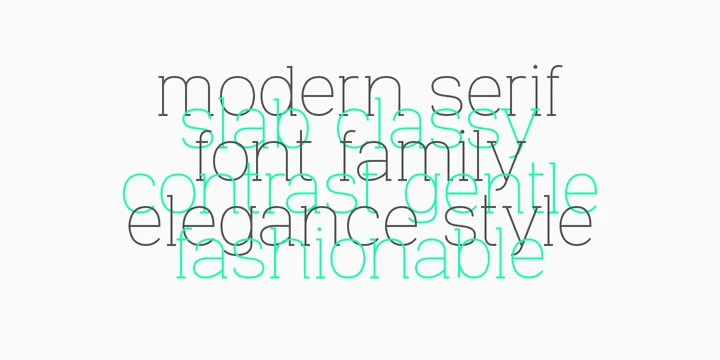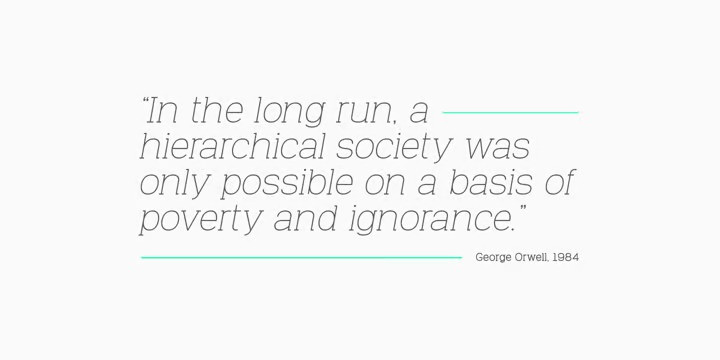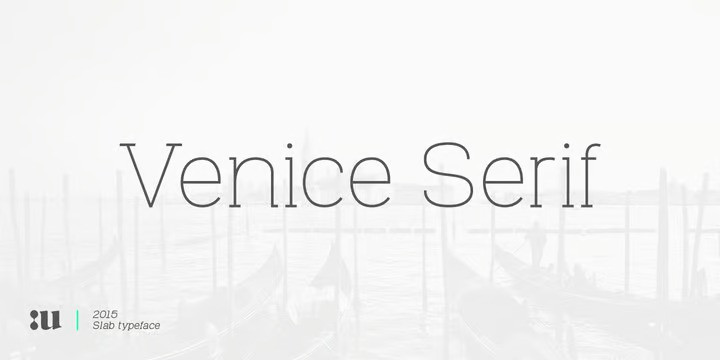
Venice Serif Font
Introducing “Venice Serif – Font Family” – a functional serif type system with a sleek structure which gives a strong personality while still maintaining high readability. Developed in three weights with matching obliques. The full set of weights (Light, Regular and Bold) counts more than 350 glyphs. The end result is a family with full multilingual capabilities and a coverage of several languages based on the Latin alphabet. This fashionable font family is the ideal choice for advertising, corporate design, packaging, editorial and branding. Specifications: – Files included: Venice Light, Venice Regular, Venice Bold with corresponding obliques – Multi-language support (Central, Eastern, Western European languages) – OpenType features